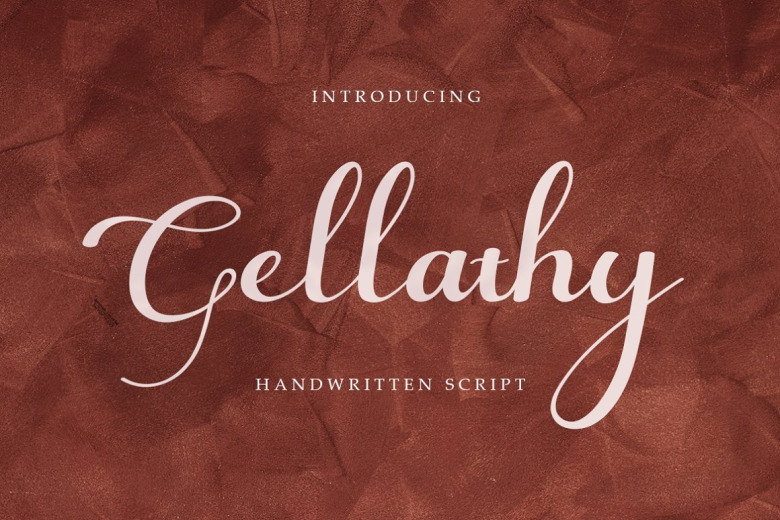
Gellathy Font
Gellathy Handwritten Script Font is perfect for branding projects, logo, wedding designs, social media posts, advertisements, product packaging, product designs, label, photography, watermark, invitation, stationery and any projects that need handwriting taste.
Gellathy Handwritten Script Font